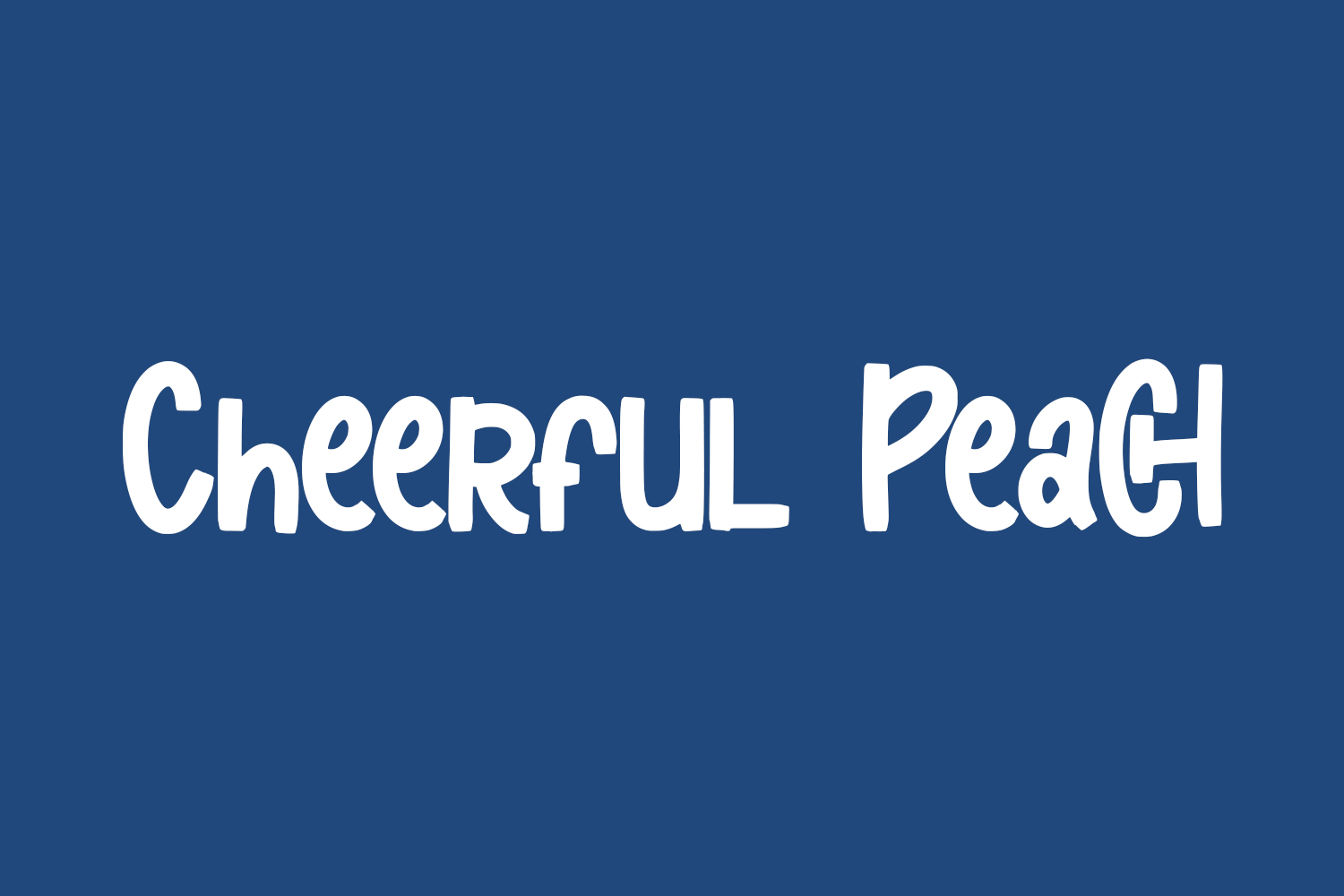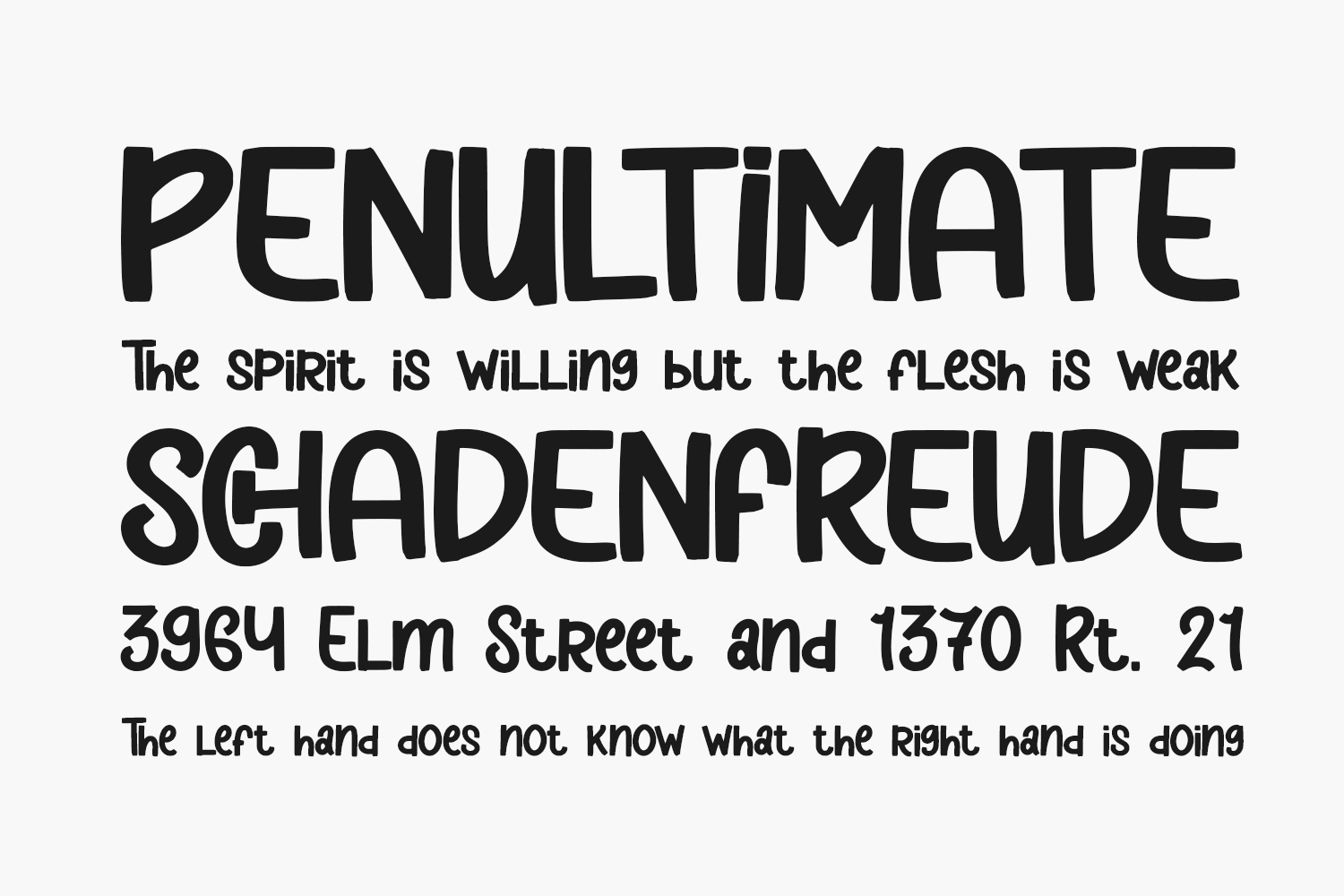
Cheerful Peach Free Font, a charming and whimsical display typeface, exudes perfect friendliness. Whether applied to crafts, digital design, presentations, or crafting greeting cards, this font stands out as a versatile and endearing choice, destined to become your preferred go-to font for any occasion. Download the font for free if you need it for personal use or purchase the full version for commercial use.